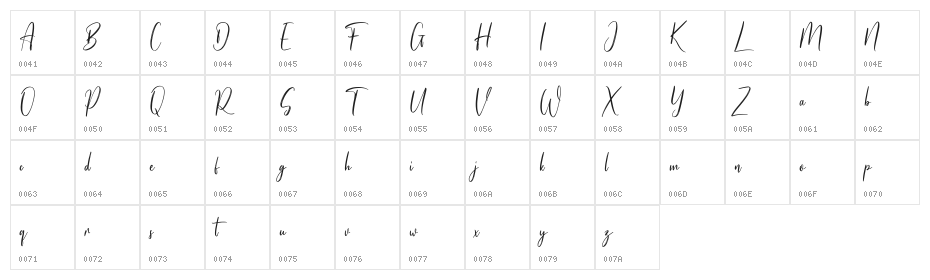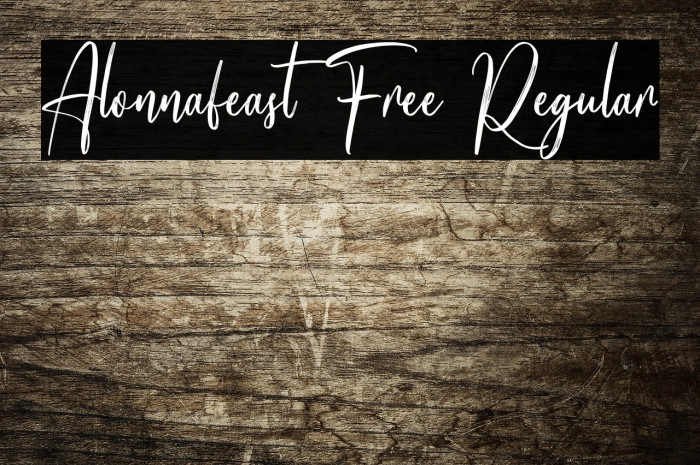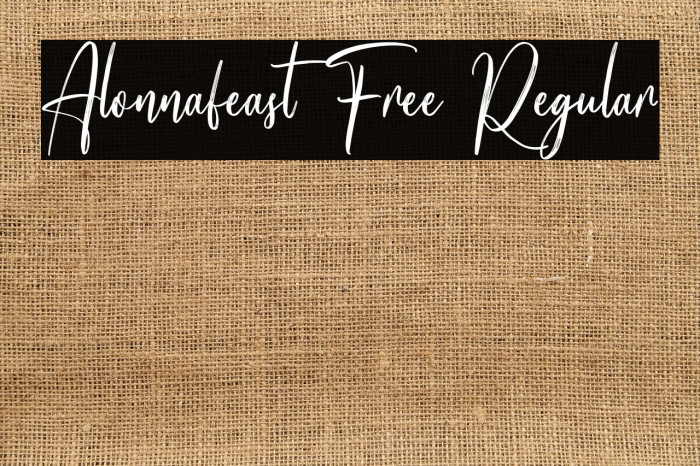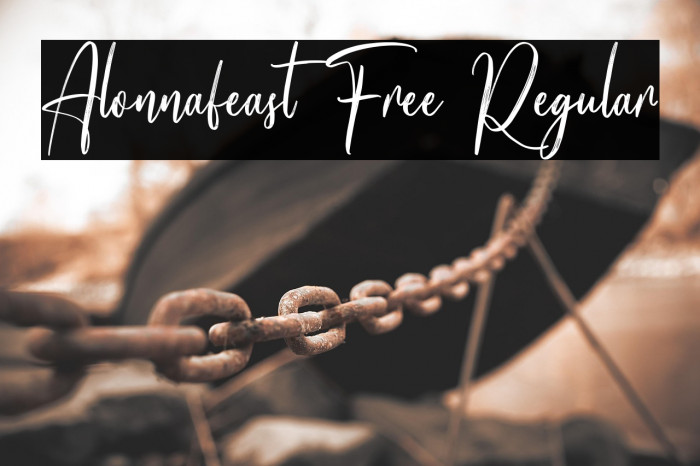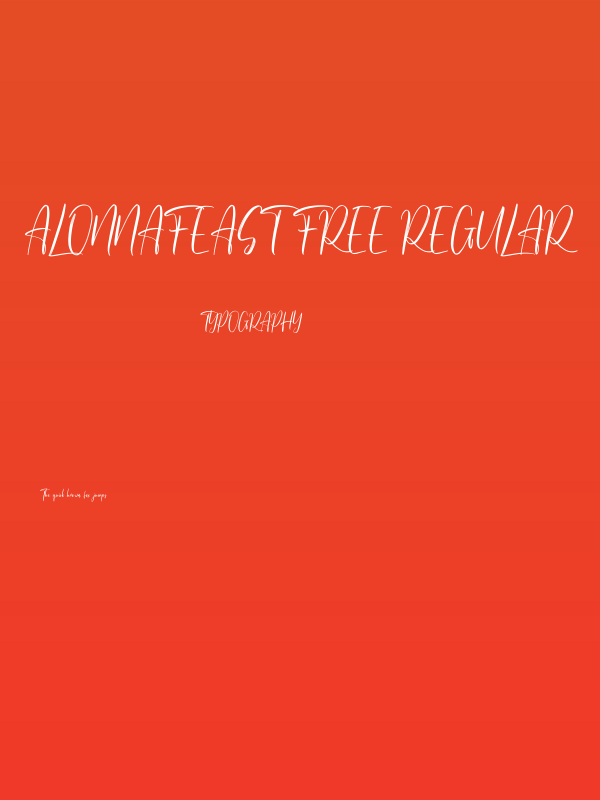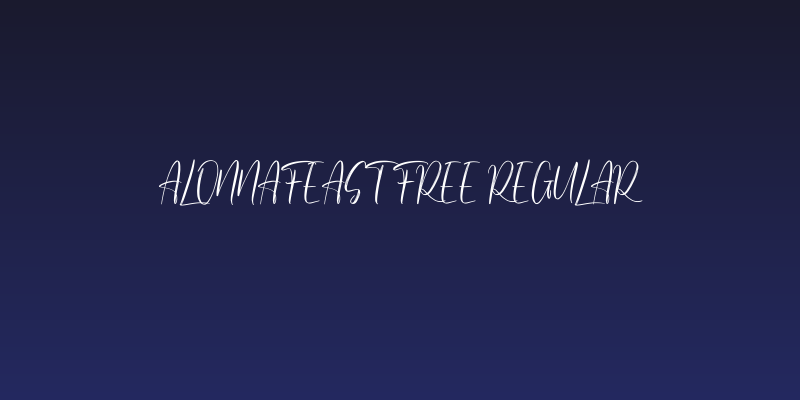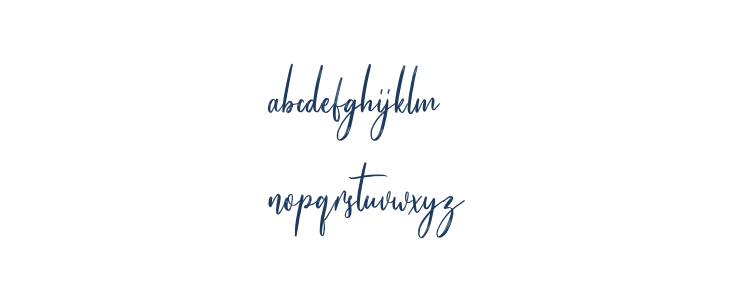
Alonnafeast Free Regular Font
Alonnafeast Free Regular Description
This font exudes a modern and elegant handwritten style, characterized by its fluid and graceful strokes. The uppercase letters are bold and sweeping, with a dynamic flow that adds a sense of movement and sophistication. The lowercase letters maintain a consistent style, offering a delicate and refined appearance. The overall design is both stylish and versatile, making it suitable for a variety of creative projects. Its unique character and charm are enhanced by the subtle variations in stroke width, which add depth and interest to the text.
| Proposed Projects | Ideal for wedding invitations, branding, social media graphics, and elegant packaging designs. |